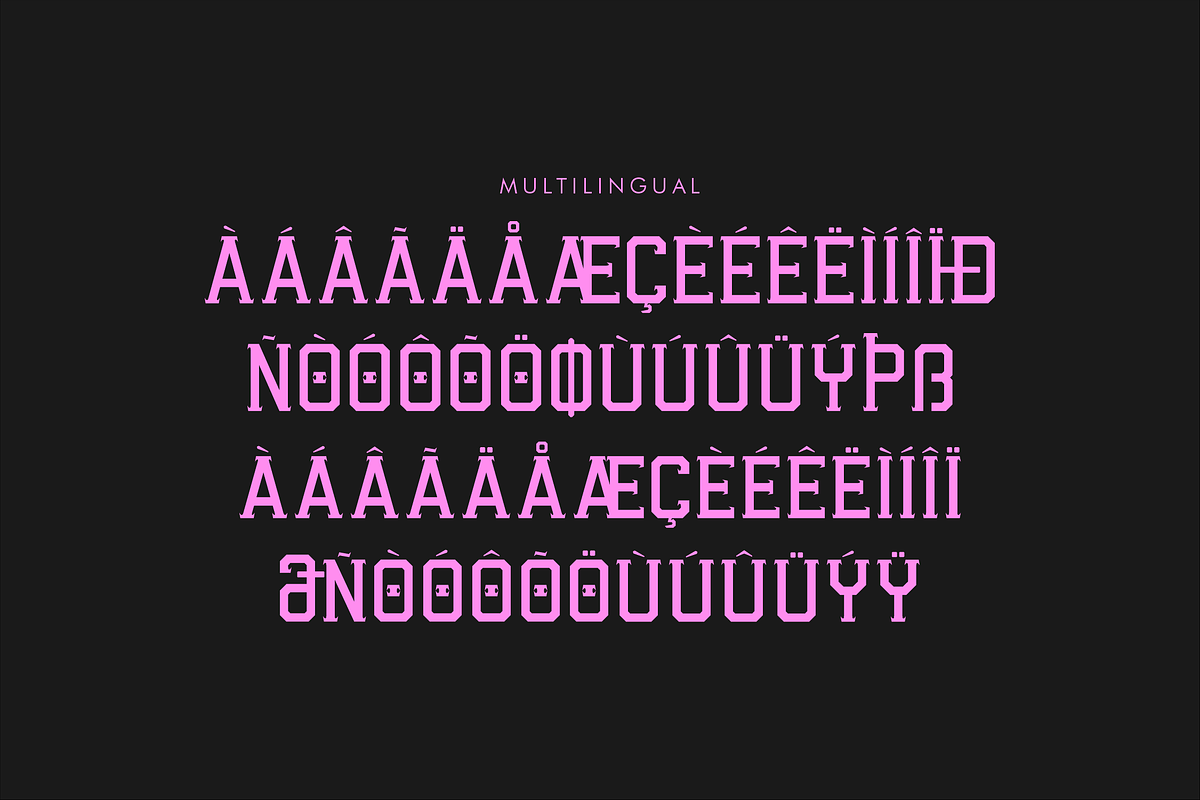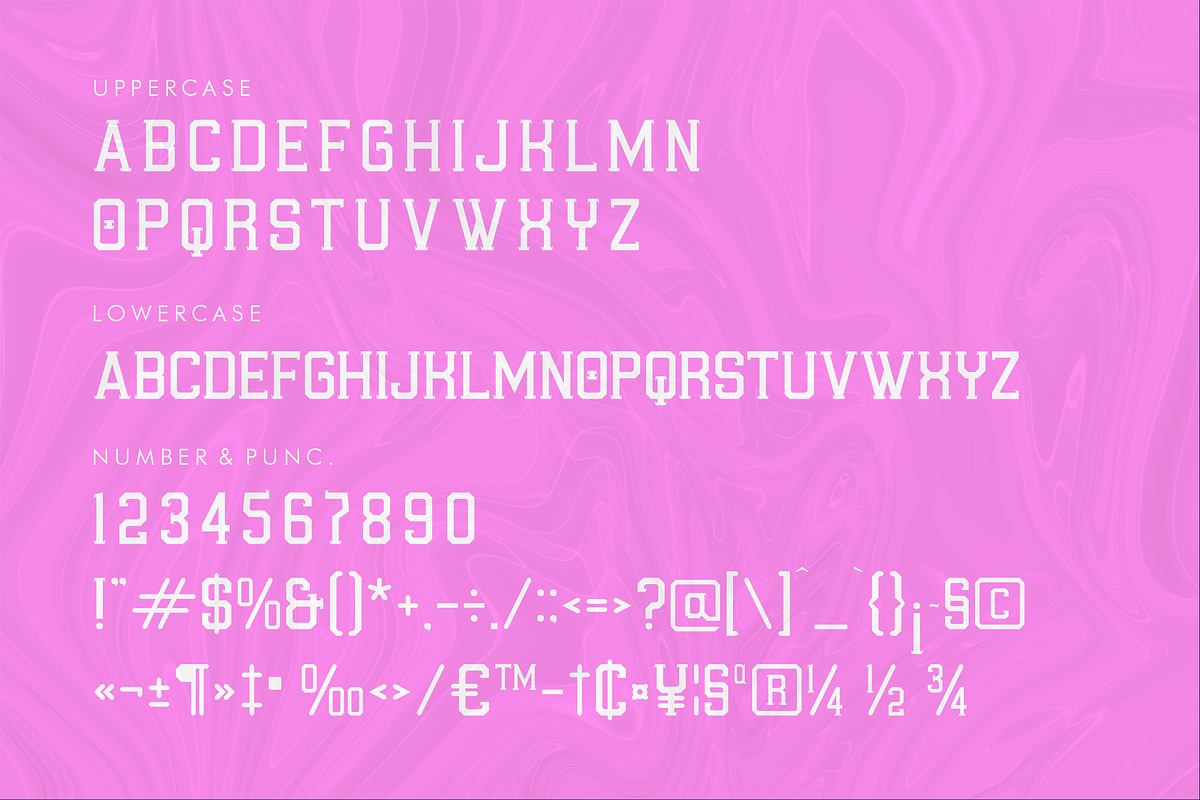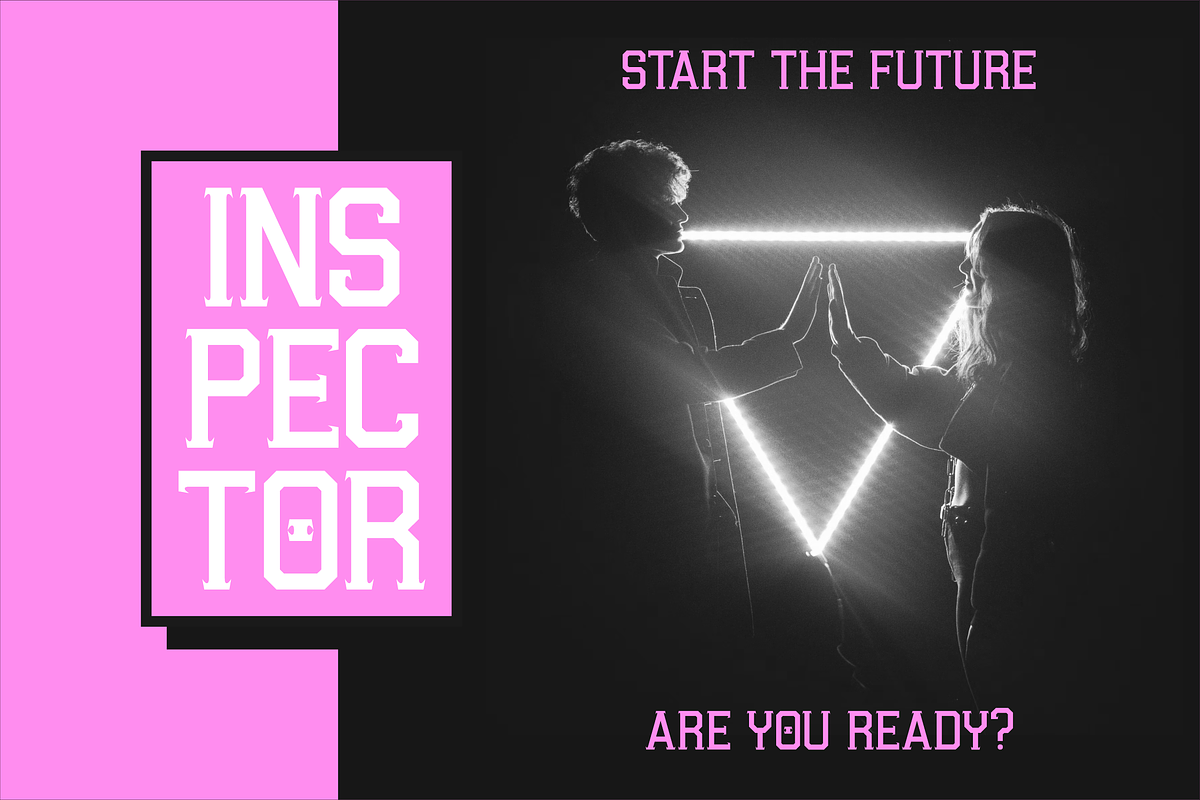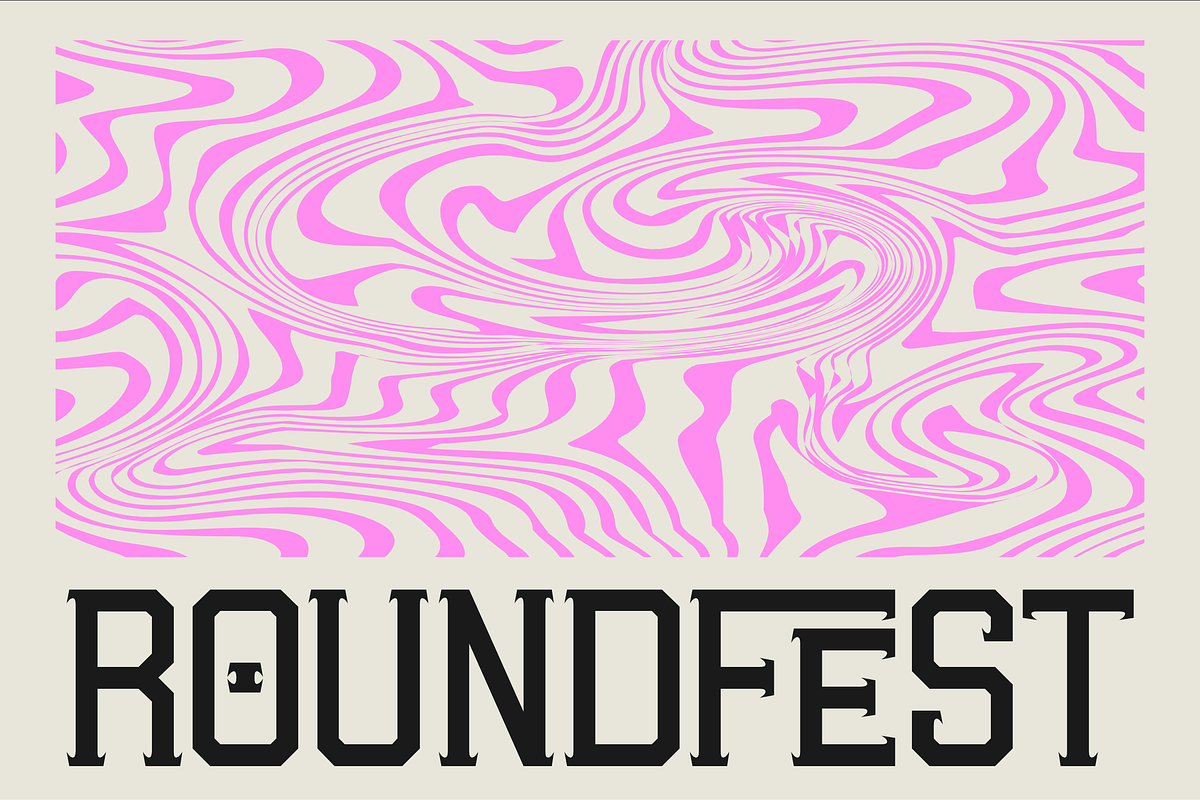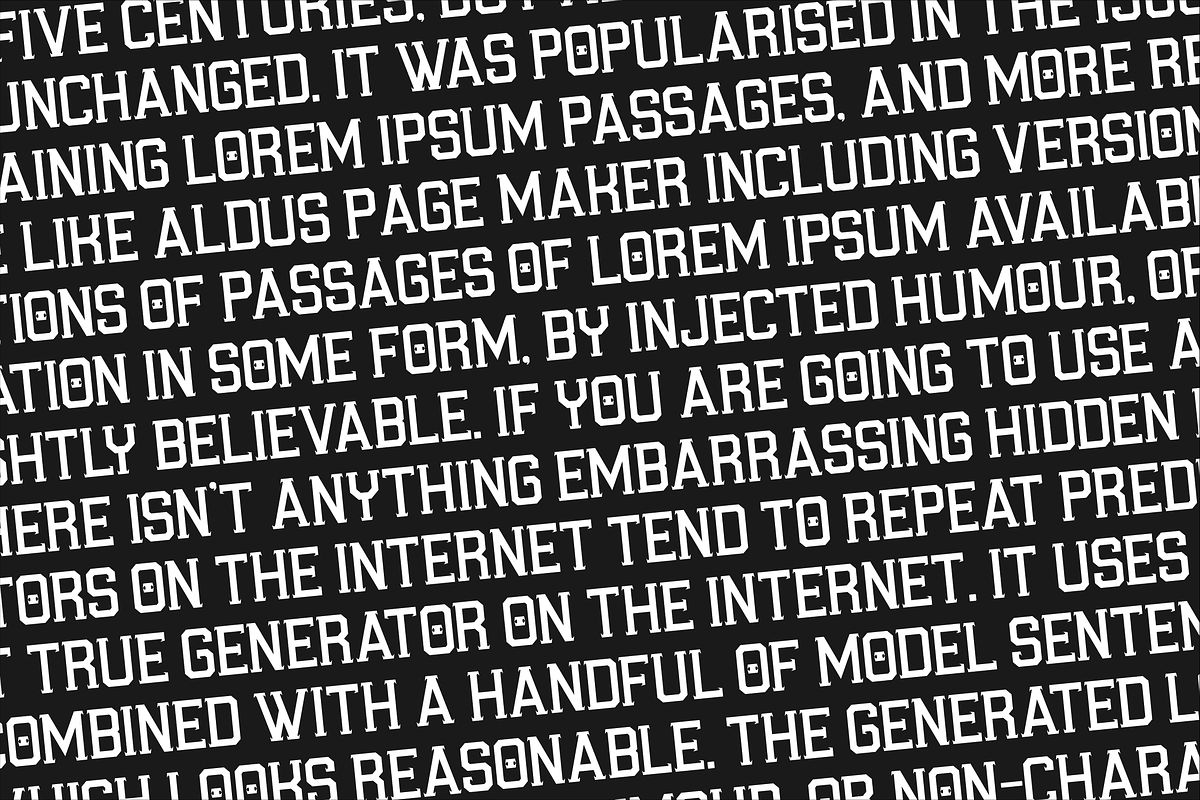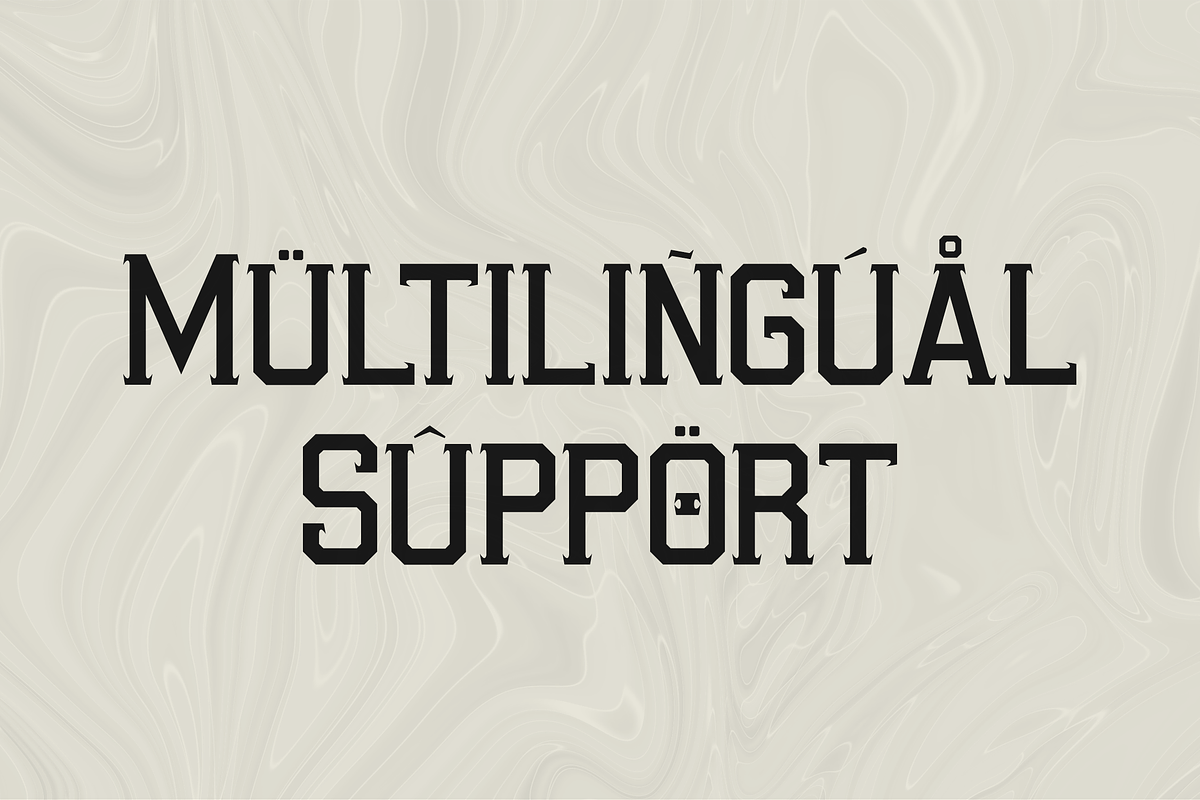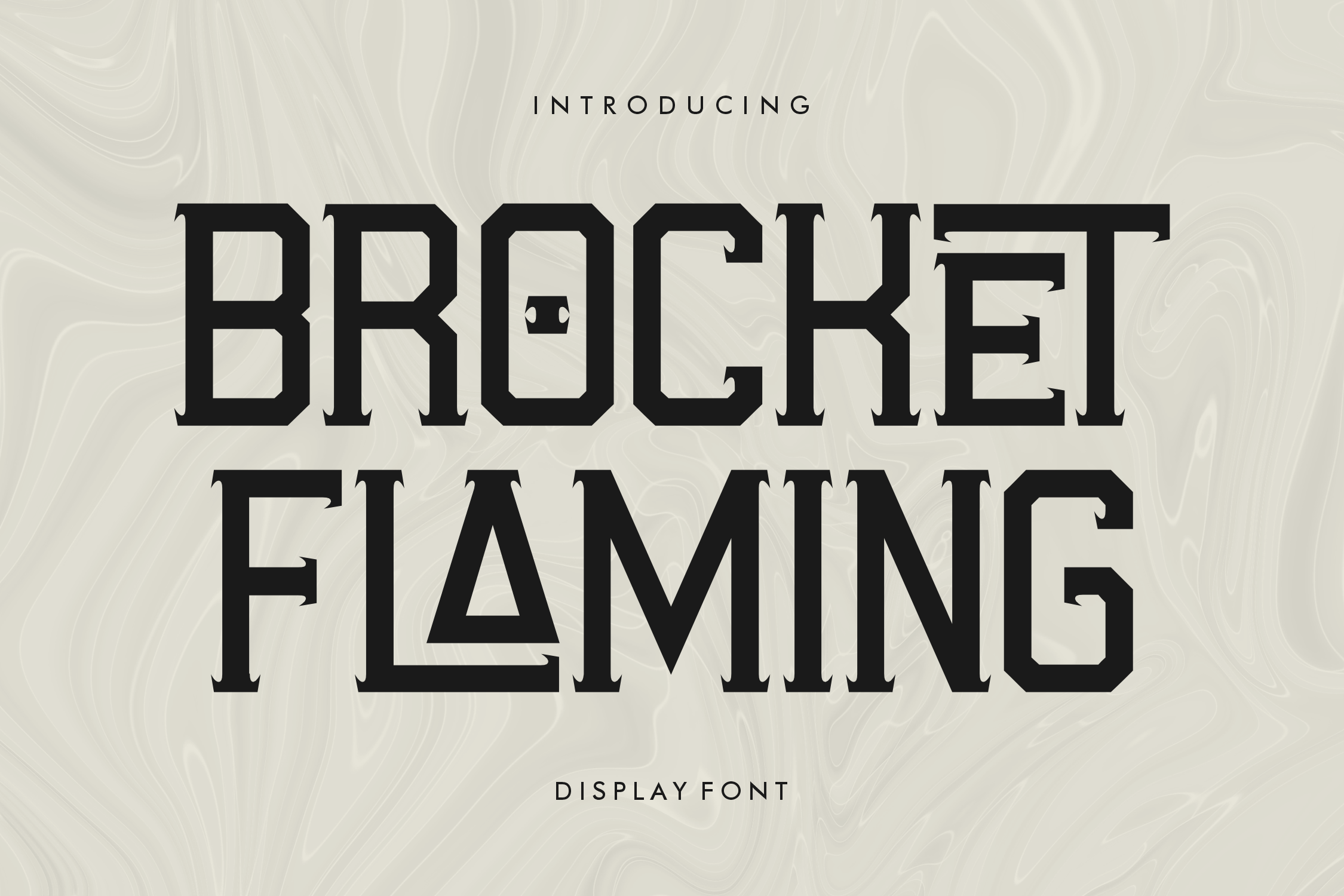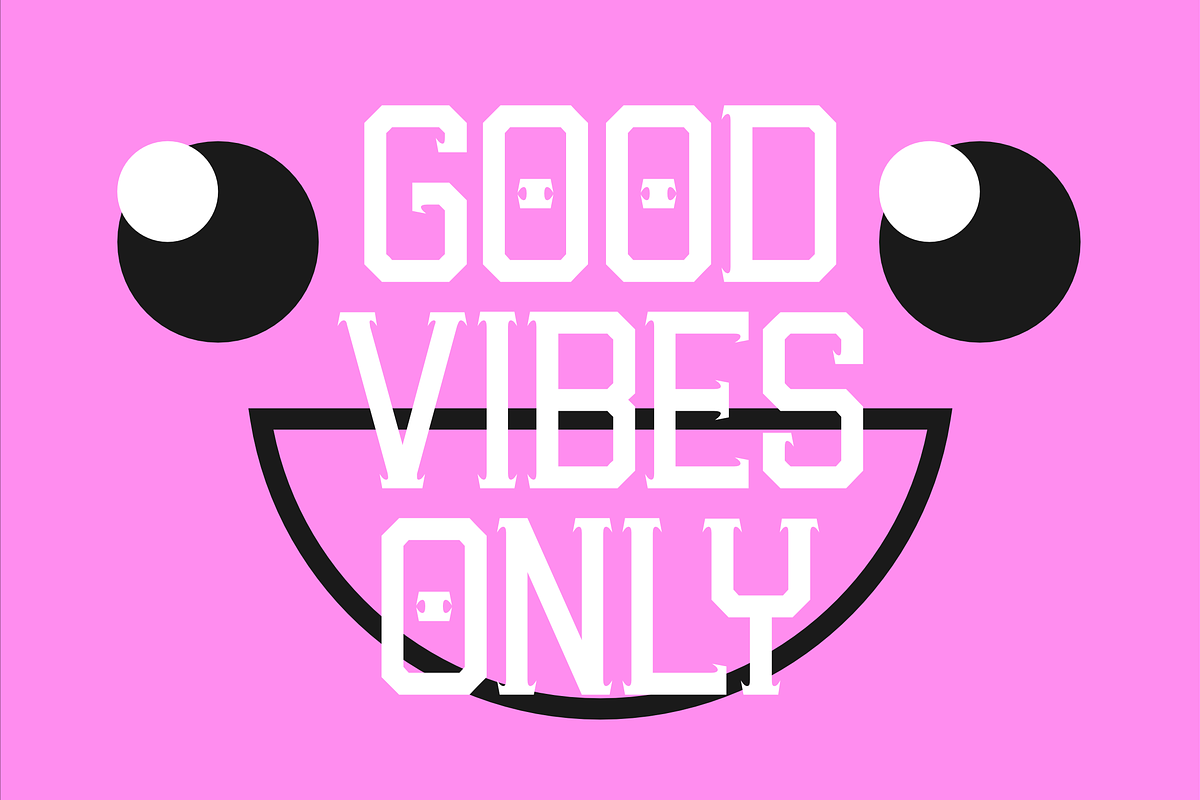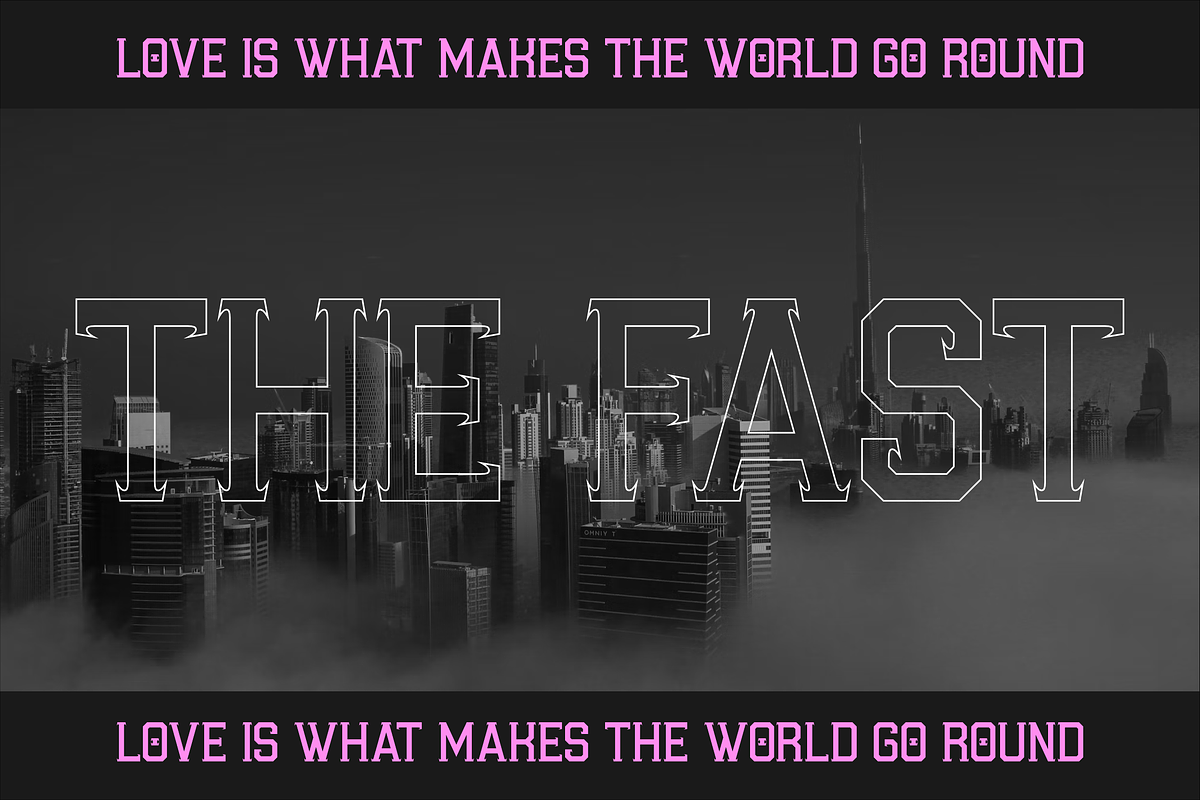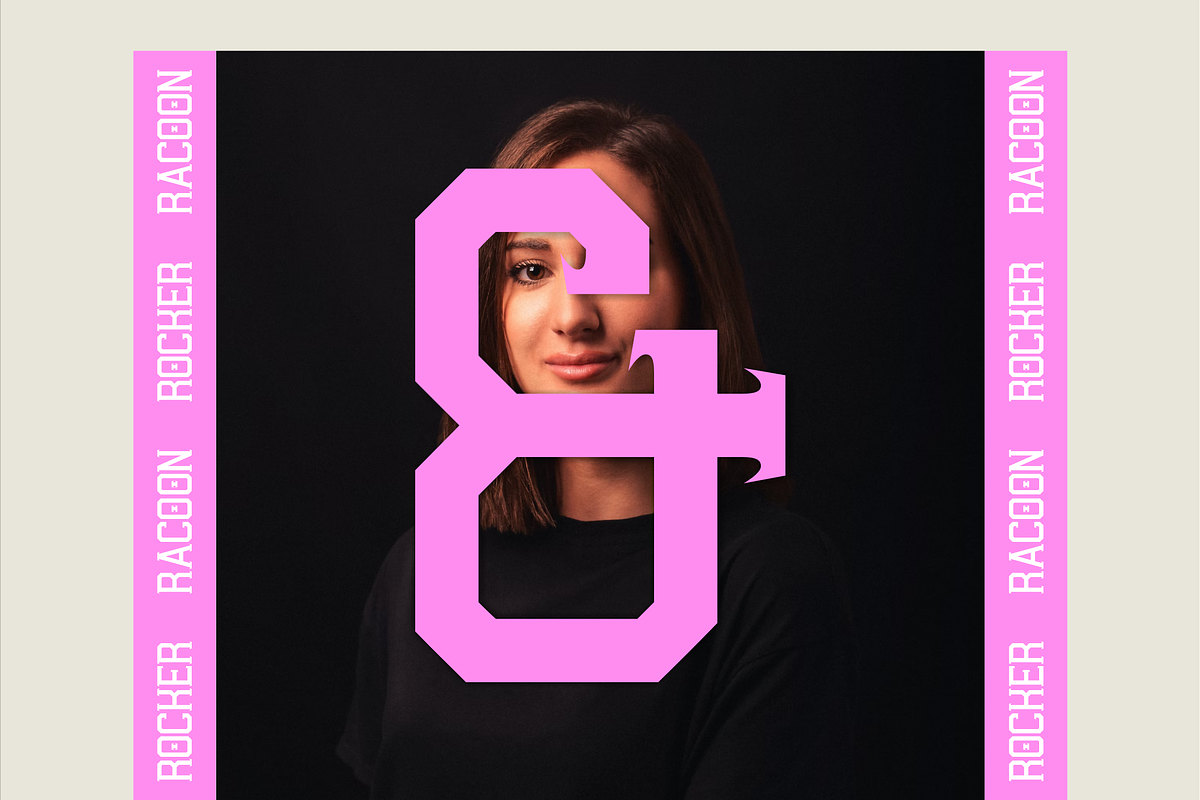
Brocket Flaming Display Font
Proudly present BROCKET FLAMING Typeface , created by Storytype, A serif modern and classic typeface that has own unique style & modern look. This typeface is perfect for an elegant & luxury logo, book or movie title design, fashion brand, magazine, clothes, lettering, quotes, and so much more.